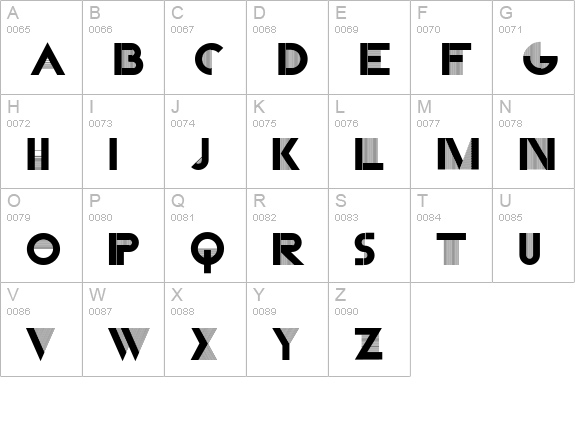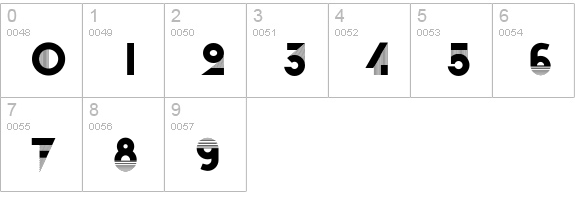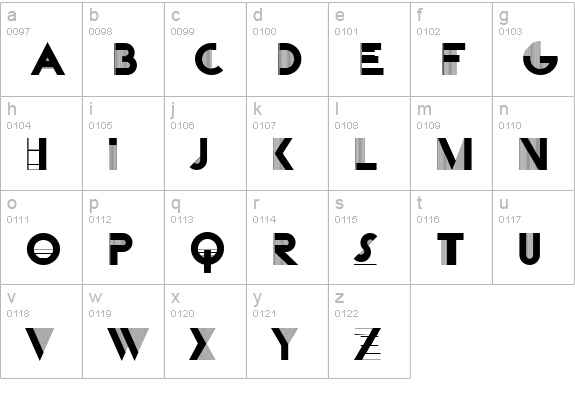
CassandraTwo Font Details
CassandraTwo font is a timeless and elegant typeface that exudes sophistication and charm. With its delicate curves and graceful lines, this font is perfect for adding a touch of class to any design project. Whether you're working on a wedding invitation, a luxurious branding project, or a high-end magazine layout, CassandraTwo font will elevate your designs to the next level. The best part? CassandraTwo font is completely free to download at FontsMarket.com. Yes, you read that right - you can add this stunning font to your collection without spending a dime. So go ahead and enhance your designs with the beauty and elegance of CassandraTwo font today.